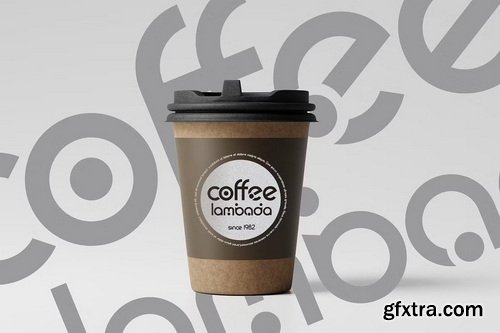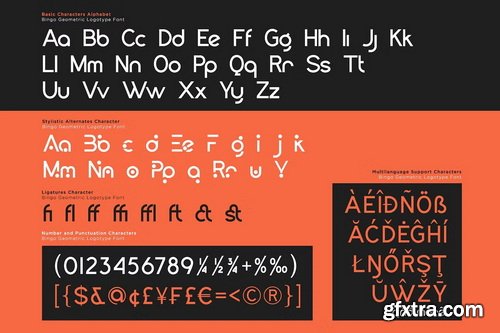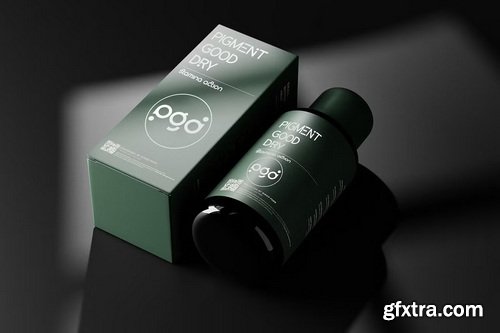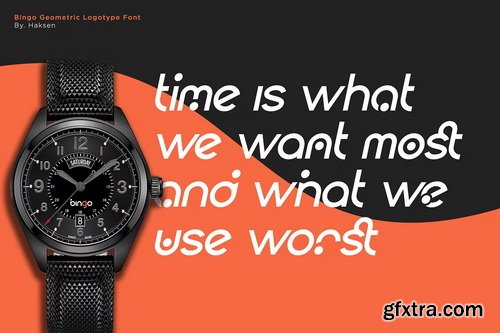
Bingo Font is a meticulously crafted typeface designed specifically for logos, branding, headers, and titling. With precise kerning and spacing tailored for impactful logos and branding materials, Bingo Font ensures your designs make a lasting impression. Please note, Bingo Font excels in visual applications where every detail matters. Elevate your design projects with Bingo Font today.